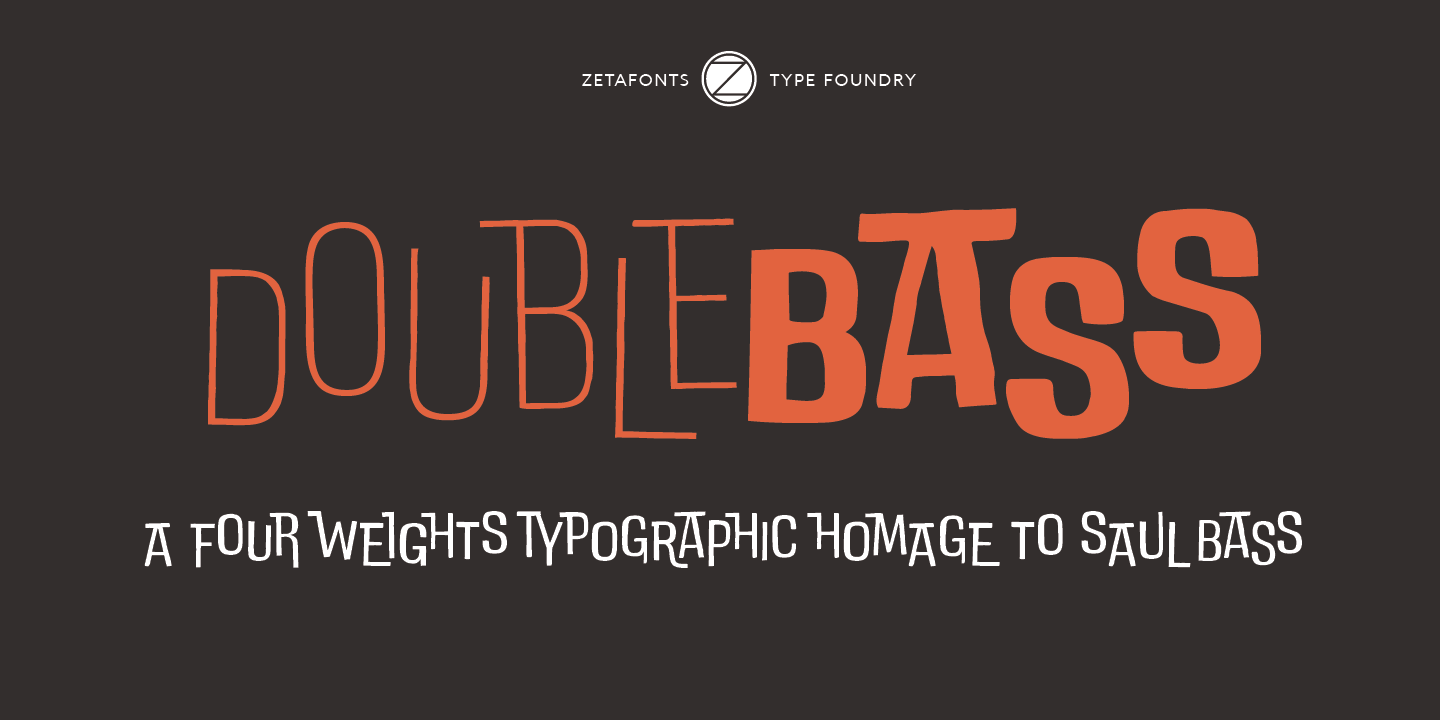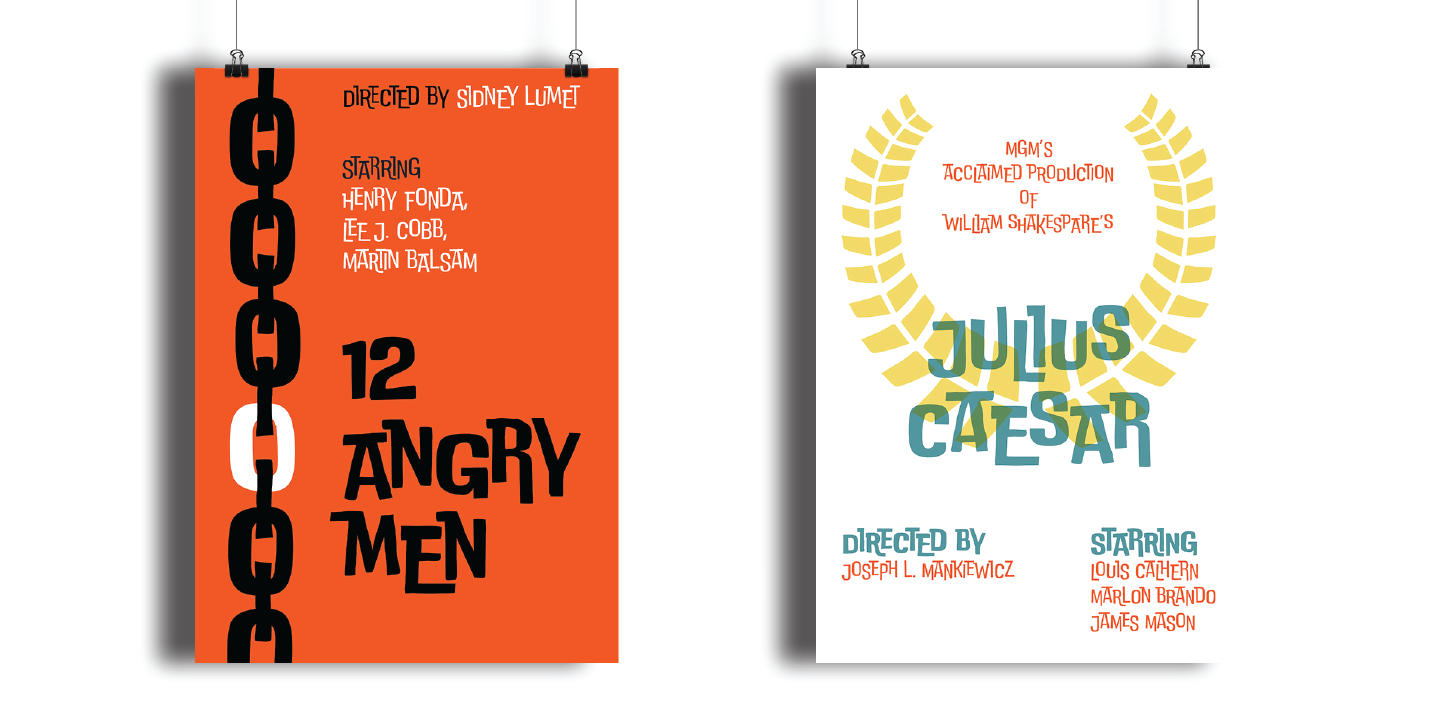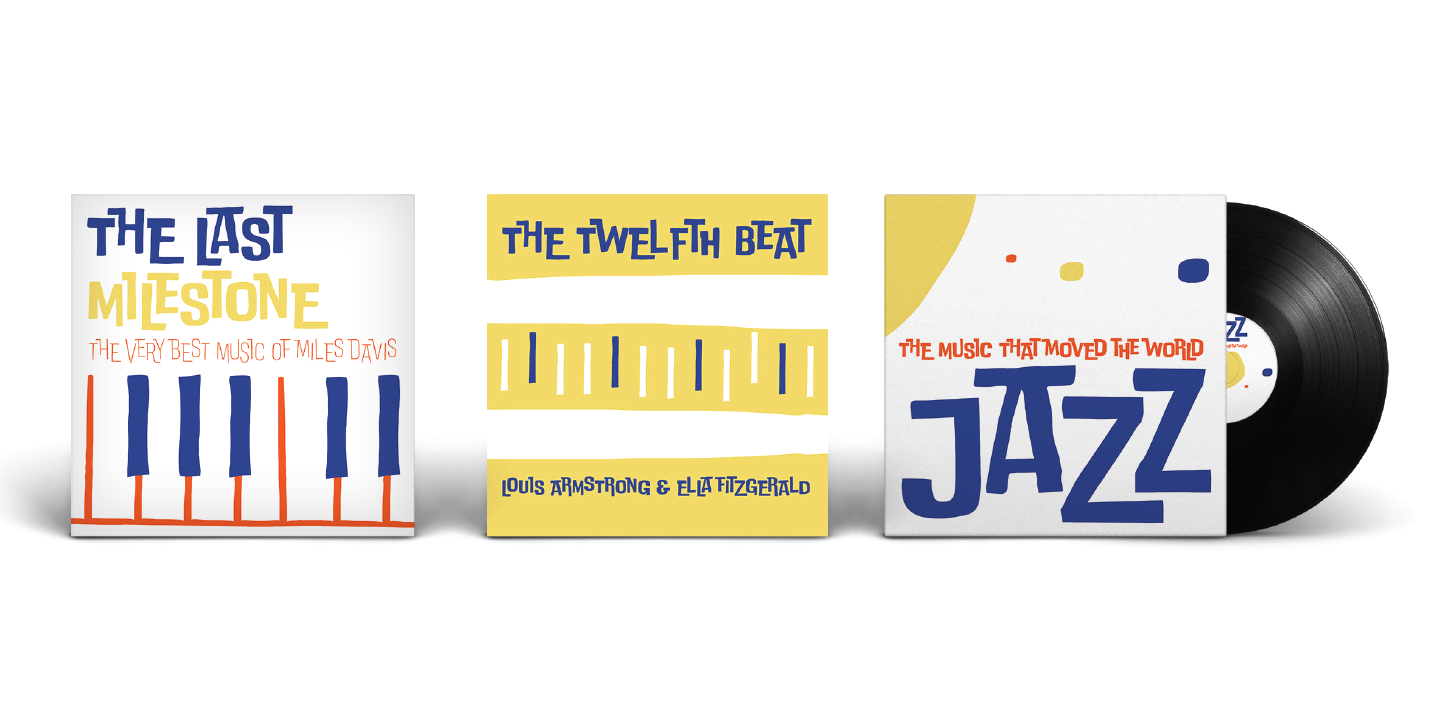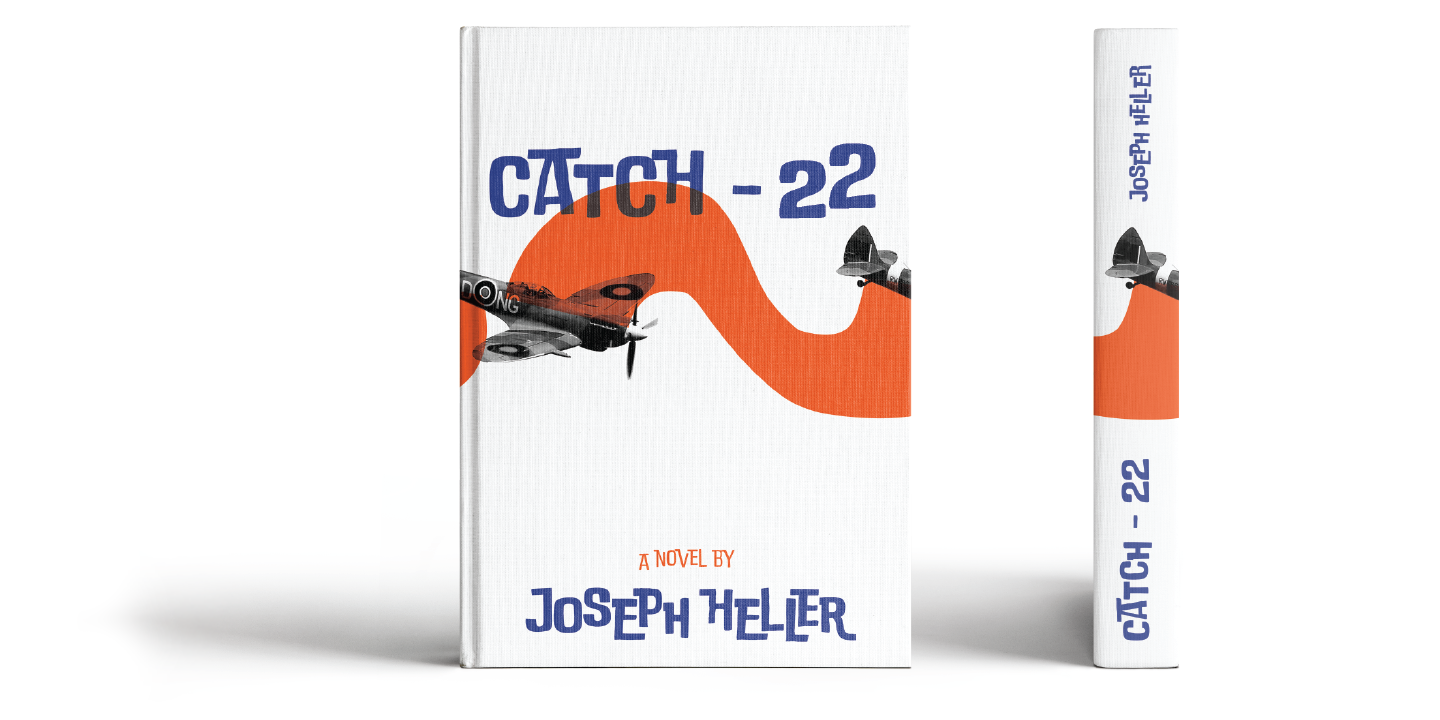
About the DoUbLeBaSs Font
About DoUbLeBaSs Font Family DoubleBass is a jazzy four-weights display family inspired by the film title design of Saul Bass, The font provides an out-of-the-box tool for cartoon modern style logo and heading design, The alternating sets of capital letters and numbers make sure that a bouncy rhythm is kept – by virtue of open type ligature substitution – while you type away
Lighter weights can work for small blocks of text, while the regular and heavy weights show their best in big sizes and display uses, Foreign languages using latin alphabet are covered, as well as Russian cyrillic, Designers: Cosimo Lorenzo PanciniPublisher: ZetafontsFoundry: ZetafontsDesign Owner: ZetafontsMyFonts debut: May 17, 2018 DoUbLeBaSs